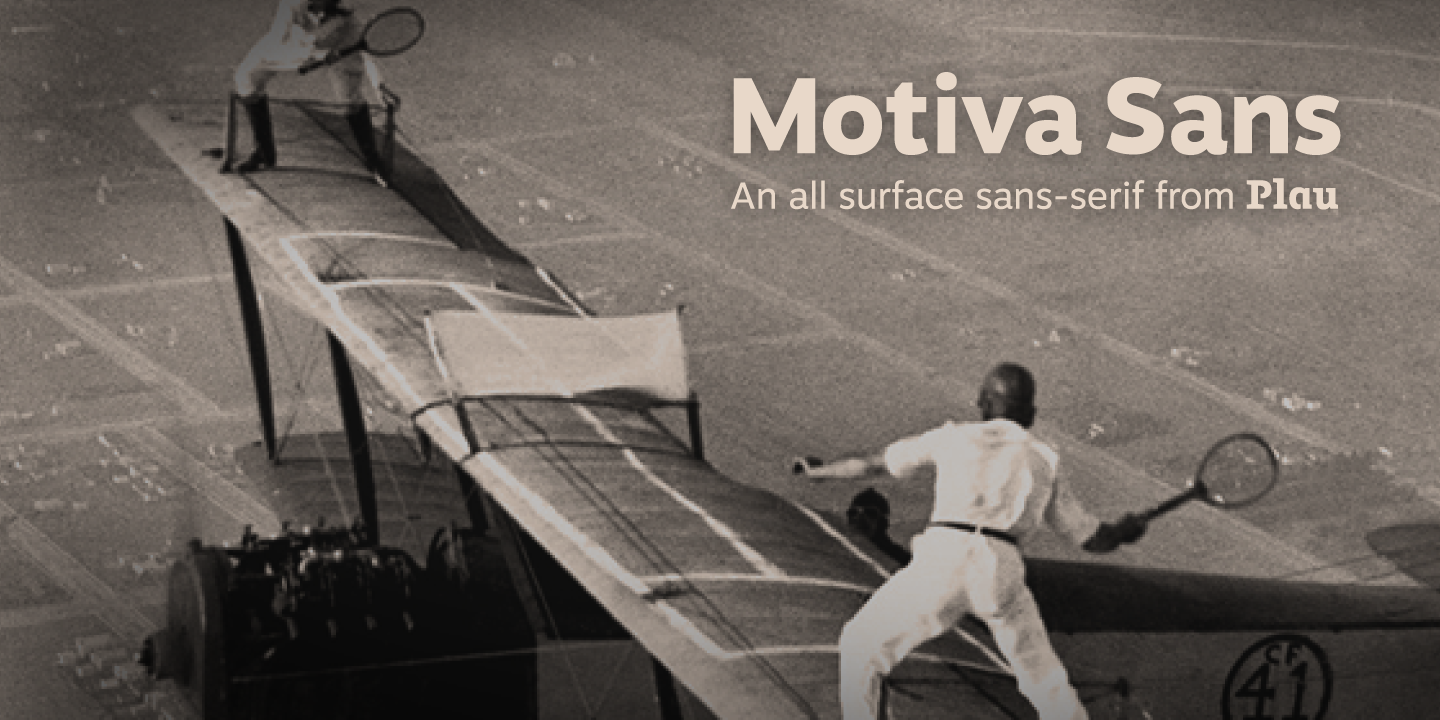
Motiva Sans Font is perfect for corporate presentations, business websites, professional reports, tech company branding, startup pitch decks, modern app interfaces, clean logo designs, minimalist packaging, financial services materials, and contemporary marketing campaigns.
Motiva Sans Font is exciting because it delivers powerful clarity and professional sophistication through its meticulously crafted letterforms that inspire confidence and trust while maintaining exceptional readability across all platforms and sizes.
Motiva Sans Font family includes Regular, Bold, Light, Medium, Italic, Condensed, Extended, and Thin variations, offering designers a complete professional toolkit to create cohesive and impactful visual communications for any business application.
Motiva Sans Font exemplifies modern professional typography, making it an essential choice for organizations that prioritize clear communication and contemporary aesthetics. This versatile typeface brings credibility and polish to any design project, whether you're developing corporate identity systems, creating user-friendly digital interfaces, or designing authoritative print materials. The optimized character spacing of Motiva Sans Font Free Download ensures superior legibility in both large headlines and small body text applications across all media formats.
Technology industry leaders consistently choose Motiva Sans Font for software interfaces, technical documentation, and product marketing because of its ability to communicate innovation and reliability simultaneously. The font's clean appearance makes it particularly effective for targeting professional audiences and creating brand experiences that emphasize efficiency and trustworthiness.
Motiva Sans Font dominates digital environments where user experience and accessibility are critical. UX designers and web developers rely on this font to create interfaces that reduce cognitive load and improve user engagement across diverse devices and screen sizes. The font's neutral yet distinctive character naturally enhances readability without distracting from content.
The financial and consulting sectors have embraced Motiva Sans Font for client presentations, annual reports, and professional communications. Its authoritative visual presence helps organizations establish credibility and communicate complex information clearly, while its modern aesthetic appeals to contemporary business audiences who value both substance and style in their professional interactions.